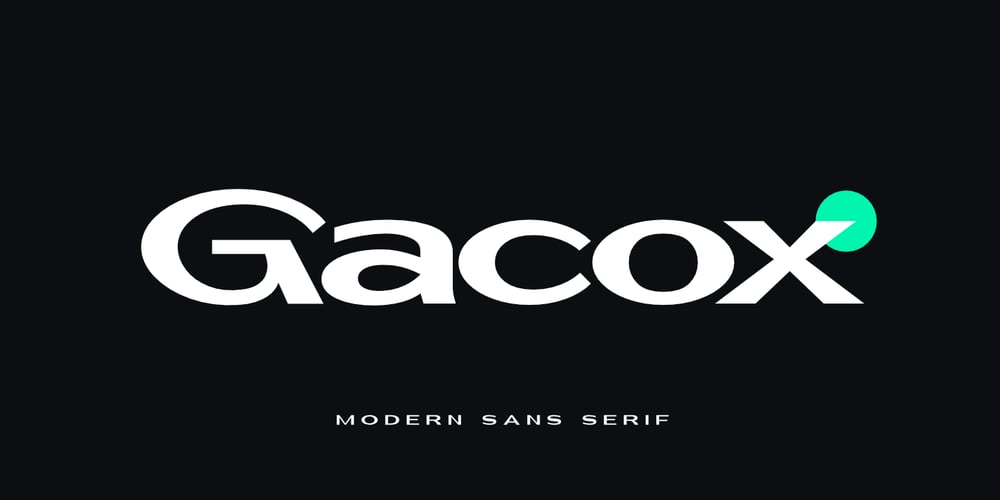
Gacox Font Family was designed by Saiful Anwar and published by Sealoung. Gacox contains 1 styles and family package options. Gacox – Distinctive Modern Sans-Serif FontGacox is a striking modern sans-serif font created to make a memorable impact. Its clean lines, unique ligature style, and contemporary look bring a fresh edge to any design project, making it ideal for posters, branding, packaging, and digital media. This font ensures a bold visual appeal that stands out.With strong, minimalist letterforms and stylish ligatures, Gacox provides both readability and a powerful presence, making it a great choice for attention-grabbing headlines, logos, and advertisements.Key Features: Unique, bold design with elegant ligatures for high visual impact Perfect for headlines, posters, and branding needs Includes lowercase and uppercase letters, numbers, and punctuation Gacox will make your designs stand out with style and impact. Add this exceptional font to your creative toolkit today!